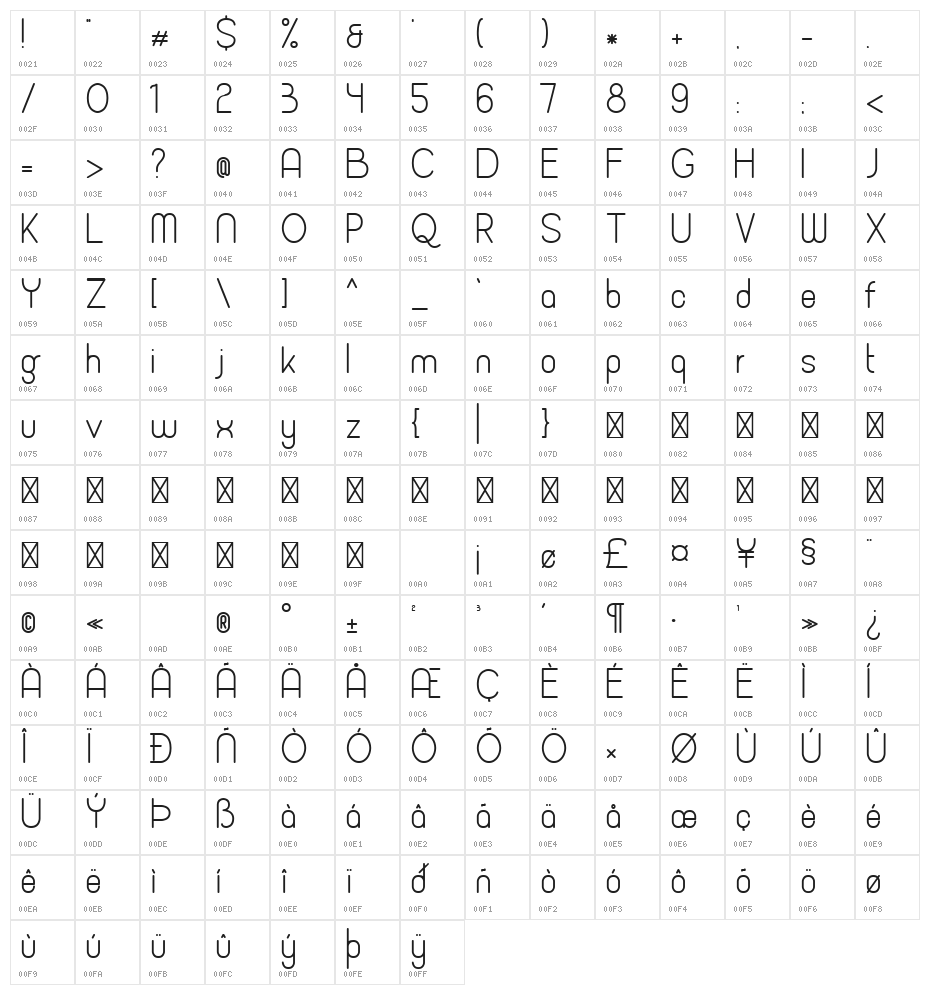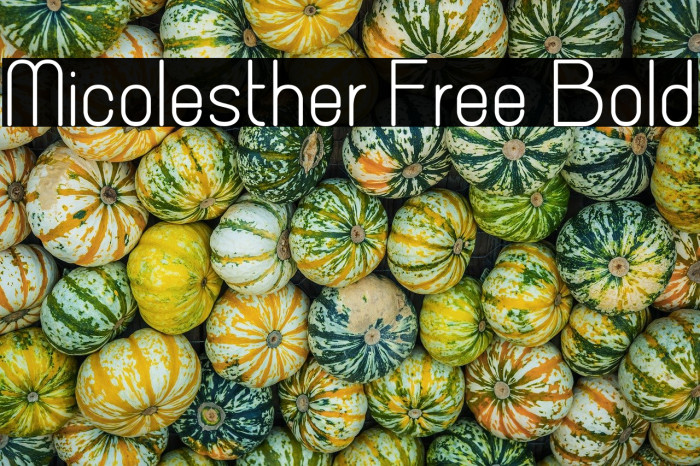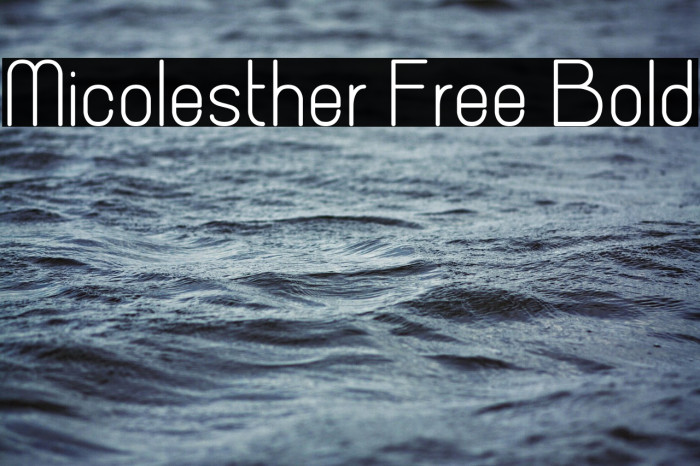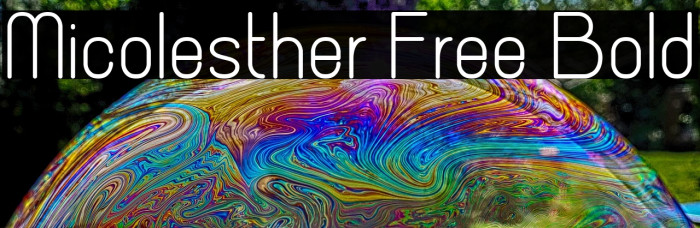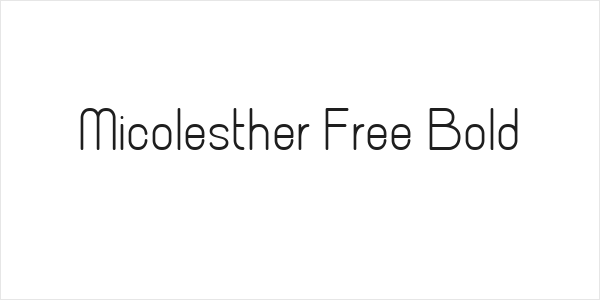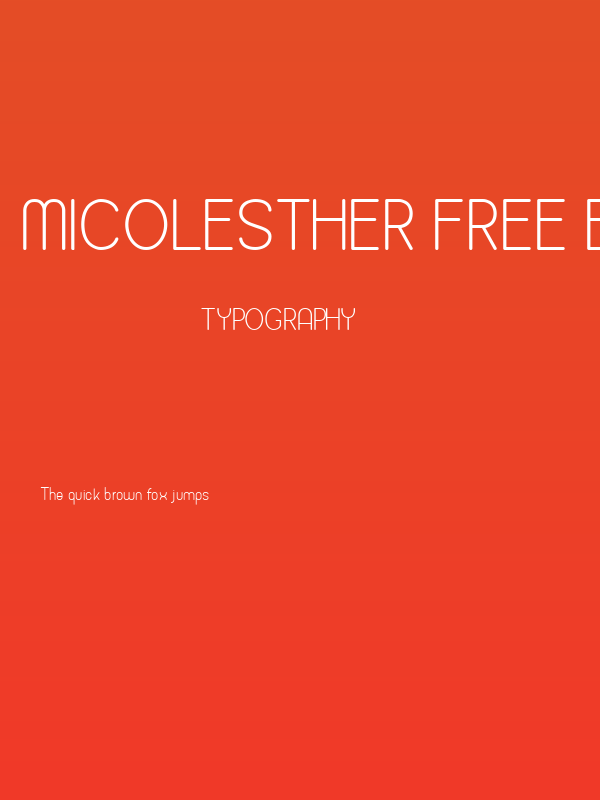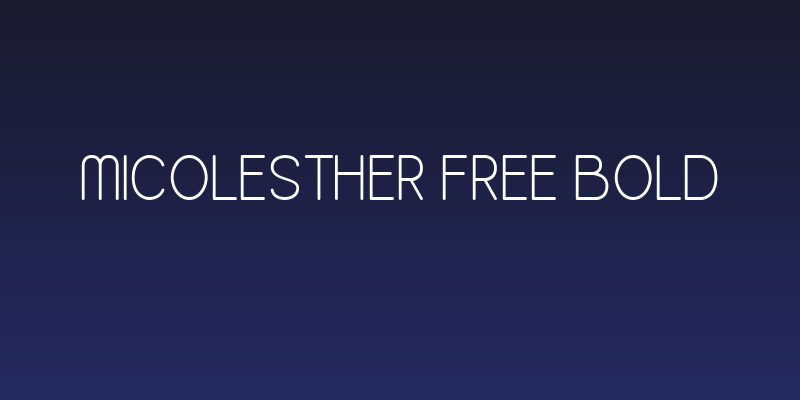
Micolesther Free Bold Font
Micolesther Free Bold Description
This font features a clean, modern design with rounded edges and a geometric structure. The uppercase letters are uniform in height, with a consistent stroke width that gives a balanced appearance. Lowercase letters maintain the same rounded aesthetic, with some characters like 't' and 'f' extending slightly above the x-height, adding a touch of elegance. The numerals are clear and legible, matching the overall style of the alphabet. Special characters are well-integrated, maintaining the font's cohesive look. This font's simplicity and clarity make it versatile for various design applications.
| Use Case | Headlines, Logos, Web design |
| Proposed Projects | Ideal for branding, web design, and modern print materials where clarity and style are essential. |